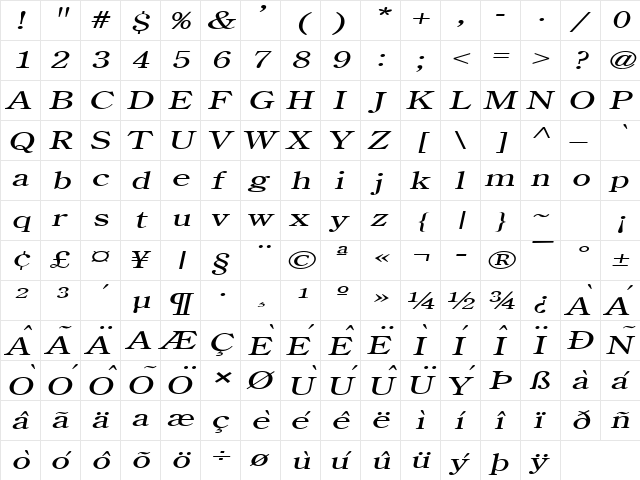
Cento Extended Italic
Design Context for Cento Extended Typeface
Cento Extended takes a measured approach to typography — its balanced proportions and neutral character make it a reliable workhorse for both digital and print work. The dynamic lean of this cut emphasises speed and emphasis in any layout.
Pro Tip: Try Cento Extended for annotation and caption copy alongside an upright companion — the contrast in angle creates a dynamic but ordered typographic system.